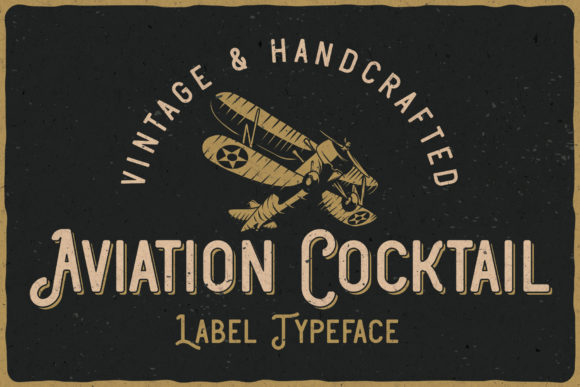
Aviation Cocktail Font: Elevate Your Designs with a Cool, Assertive, and Bold Style
In the world of typography, fonts play a crucial role in conveying the tone and personality of a design. For designers and crafters looking to add a touch of sophistication and elegance to their projects, the Aviation Cocktail Font is an excellent choice. This stunning display font is perfect for creating personalized and eye-catching designs that make a lasting impression.
What is Aviation Cocktail Font?
Aviation Cocktail Font is a cool, assertive, and bold display font that is designed to make a statement. Its unique and stylish lettering makes it an ideal choice for a variety of design projects, including wedding invitations, thank you cards, weddings, greeting cards, logos, and more. With its elegant and refined aesthetic, this font is sure to elevate your designs and set them apart from the rest.
Key Features of Aviation Cocktail Font
- Cool and Assertive Style: The Aviation Cocktail Font boasts a cool and assertive style that is perfect for designers who want to add a touch of sophistication to their designs.
- Bold and Elegant: This font features bold and elegant lettering that makes it perfect for creating eye-catching designs that command attention.
- Versatile: The Aviation Cocktail Font is versatile and can be used for a wide range of design projects, from wedding invitations to logos and more.
- Easy to Read: Despite its bold style, the Aviation Cocktail Font is easy to read, making it perfect for designs that require a clear and concise message.
Uses of Aviation Cocktail Font
The Aviation Cocktail Font is perfect for a variety of design projects, including:
- Wedding Invitations: Add a touch of elegance and sophistication to your wedding invitations with the Aviation Cocktail Font.
- Thank You Cards: Create personalized and stylish thank you cards that make a lasting impression.
- Greeting Cards: Use the Aviation Cocktail Font to create eye-catching and elegant greeting cards for special occasions.
- Logos: Create a bold and memorable logo for your business or brand with the Aviation Cocktail Font.
- Social Media Graphics: Elevate your social media graphics with the Aviation Cocktail Font and make your content stand out.
Tips for Using Aviation Cocktail Font
To get the most out of the Aviation Cocktail Font, here are some tips to keep in mind:
- Pair with Simple Backgrounds: Pair the Aviation Cocktail Font with simple backgrounds to make your text stand out.
- Use for Headings: Use the Aviation Cocktail Font for headings and titles to add a touch of elegance and sophistication.
| Font Name | Aviation Cocktail Font |
| Author | Vozzy Vintage Fonts And Graphics |
The Aviation Cocktail Font is a stunning display font that is perfect for designers and crafters looking to add a touch of sophistication and elegance to their designs. With its cool, assertive, and bold style, this font is sure to elevate your designs and make them stand out. Whether you’re creating wedding invitations, thank you cards, logos, or social media graphics, the Aviation Cocktail Font is an excellent choice.